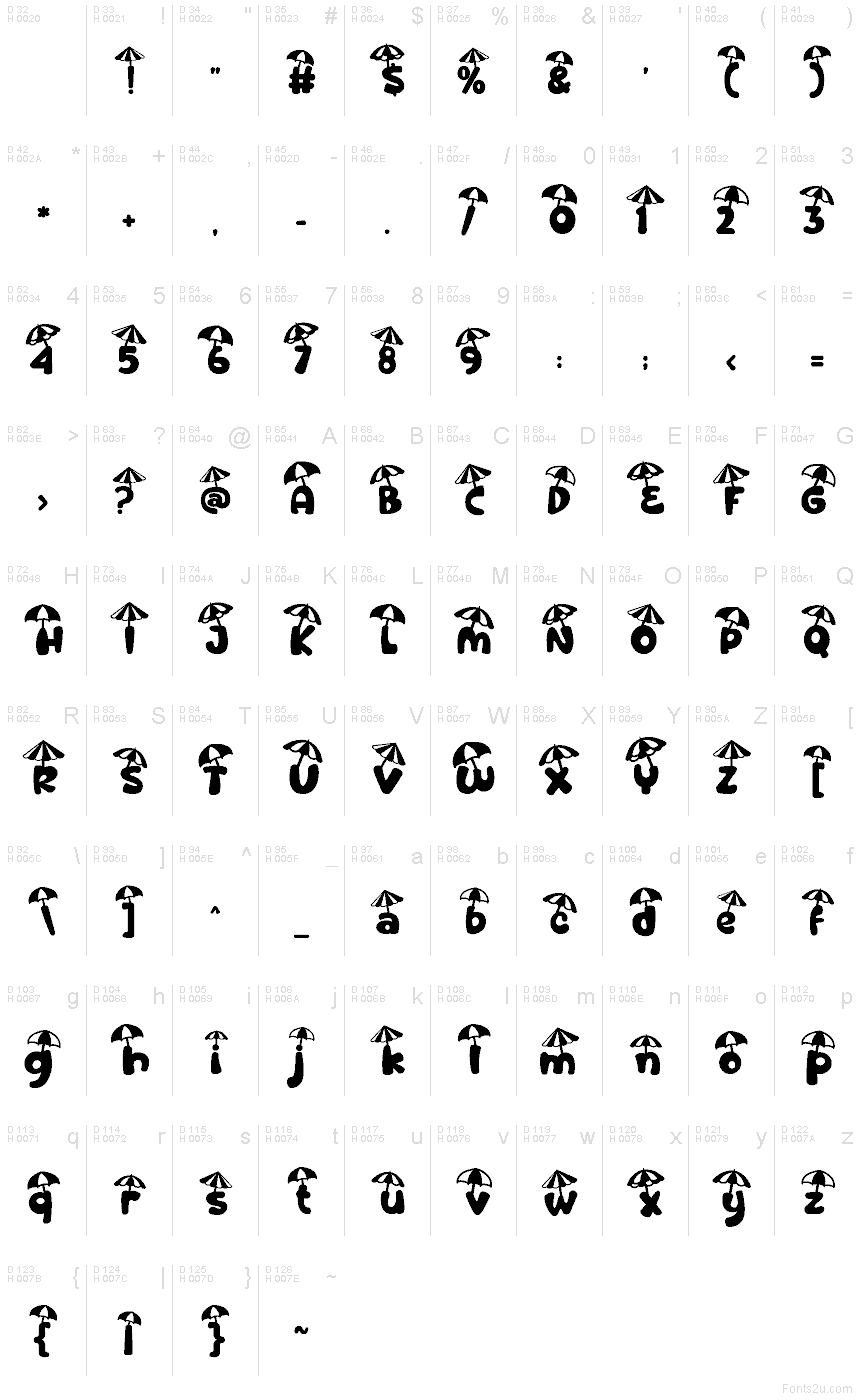
Sandy Toes Umbrella
Sandy Toes Umbrella font, a PutraCetol Studio creation, is a quirky display font with a whimsical beach-themed design. Its casual vibe stems from bold decorative characters adorned with fun umbrellas. The design combines creative touches such as sharp corners and spring-like elements that make Sandy Toes Umbrella stand out.
This free display font has plenty of personality for games, toys, and movie covers. Use it for stationery projects like business cards and special event invitations such as weddings or baby showers. Gift packaging, comic books, book covers, greeting cards, and children-oriented displays can also benefit from Sandy Toes Umbrella’s charm.